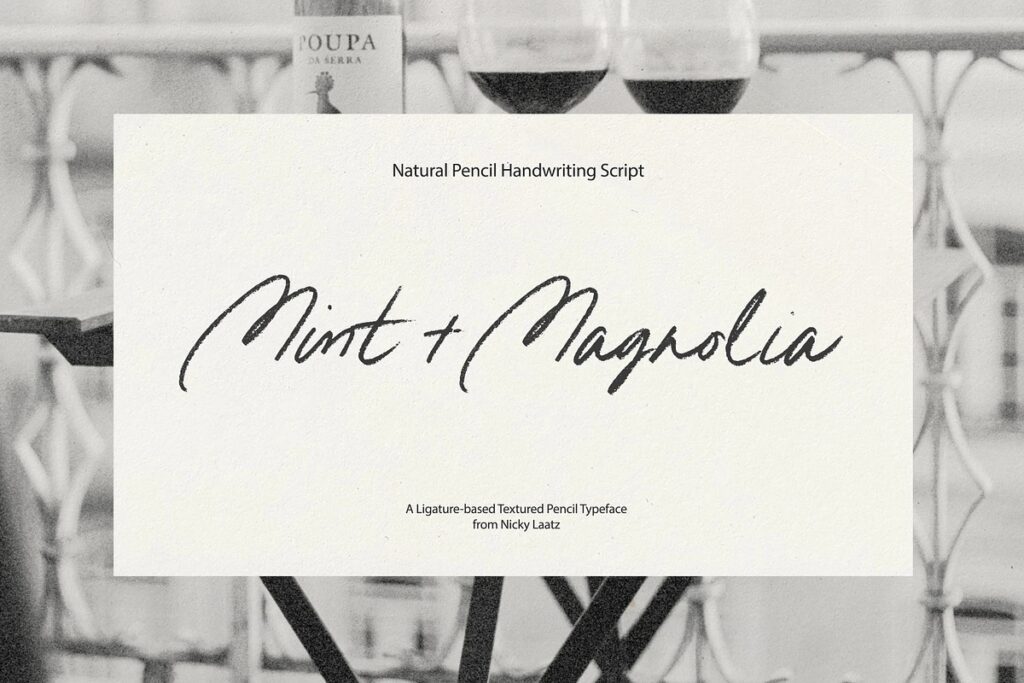
Introducing Mint + Magnolia Typeface: A Casual Yet Classy Handwritten Script
If you’re searching for a charming, handwritten script that balances elegance and casual appeal, the Mint + Magnolia Typeface is your perfect match. This unique typeface, designed with a pencil-like, handwritten feel, brings a warm, personal touch to your design projects while maintaining a classy aesthetic
Why Choose Mint + Magnolia?
The Mint + Magnolia Typeface comes in both Regular and Slanted versions, offering two different personalities in one font family. Whether you want a more laid-back look or a slightly more dynamic, slanted feel, this typeface has you covered. The font is available in both Bitmap SVG and Regular Vector formats, allowing for flexibility depending on your design needs. With Opentype Ligatures enabled, the typeface truly comes to life, featuring special double-letter combinations that make your designs look even more natural.
Key Features of Mint + Magnolia:
Handwritten Pencil Script: Gives a personal, classy touch to your designs.
Regular and Slanted Versions: Offers two distinct styles to match different design vibes.
Opentype Ligatures: Special double-letter combinations automatically appear when Opentype Features are enabled in your design software.
Best Uses for Mint + Magnolia:
Branding and Logos: Create personal, elegant logos with a handwritten flair.
Invitations and Event Designs: Ideal for wedding invites, birthday cards, and more with its casual yet stylish feel.
Magazines and Editorials: Use for creative headlines or feature sections that need a warm, personal touch.
SVG Designs and T-Shirts: Perfect for craft projects and quotes, giving a unique handwritten vibe.